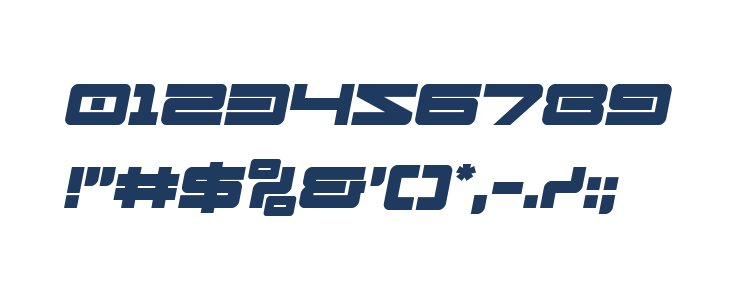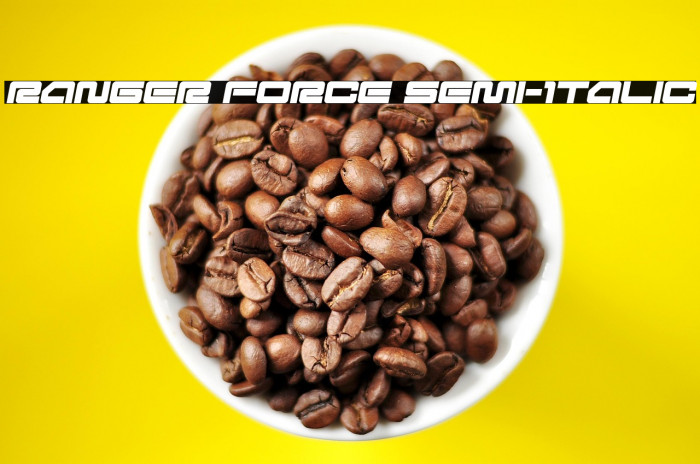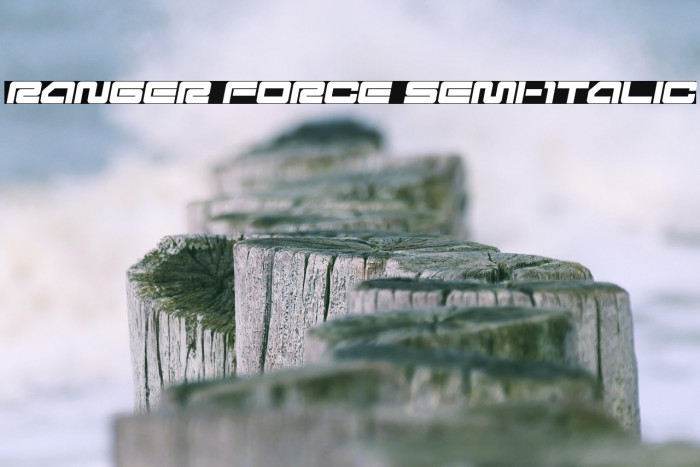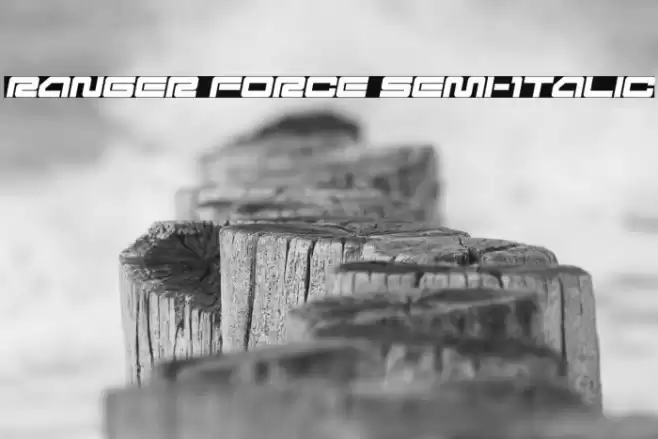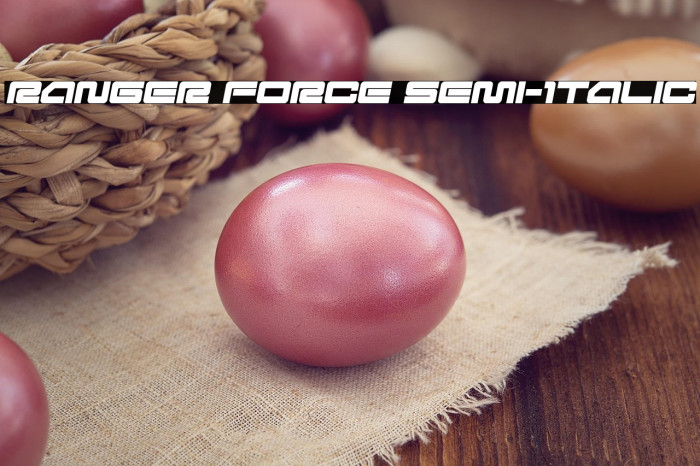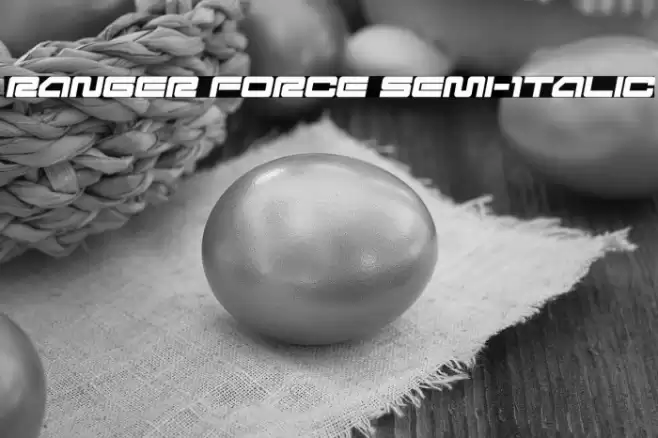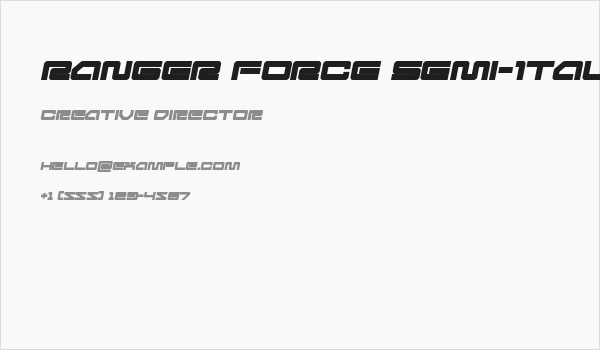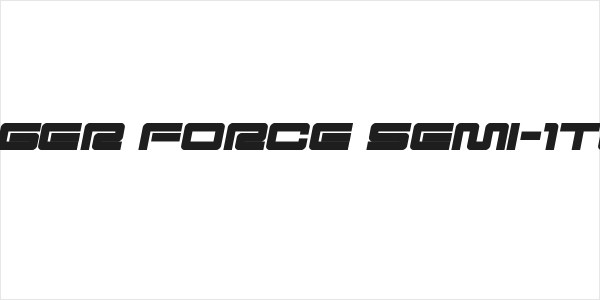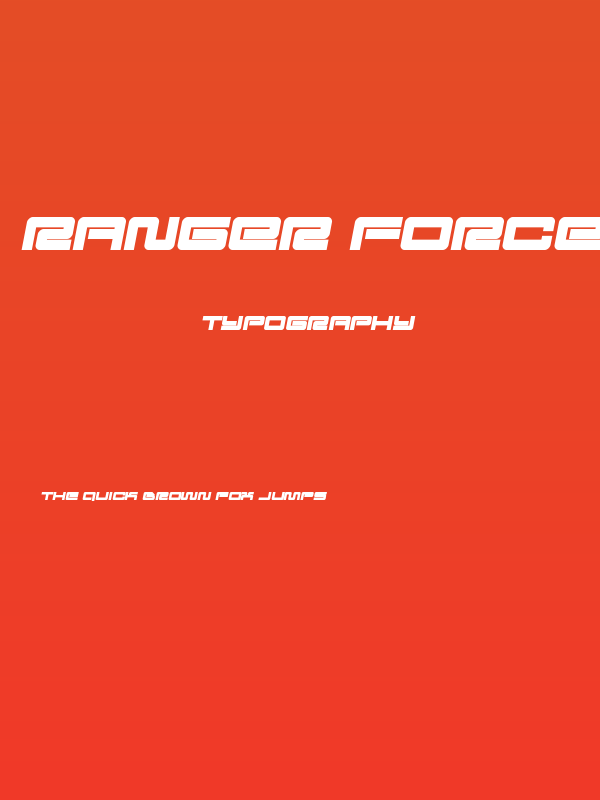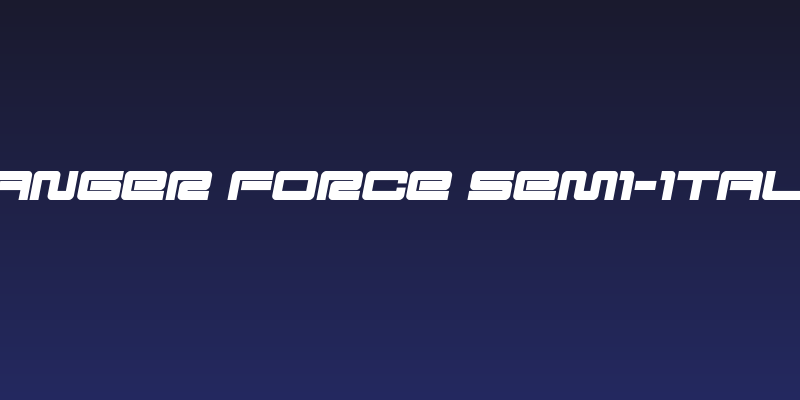
Ranger Force Semi-Italic Font
Ranger Force Semi-Italic Description
This font features a bold, futuristic design with a semi-italic slant, giving it a dynamic and forward-moving appearance. The characters are constructed with geometric precision, incorporating sharp angles and clean lines that suggest a sense of speed and modernity. The uppercase and lowercase letters maintain a consistent style, with the lowercase mirroring the uppercase in form but slightly reduced in size. Numbers and special characters follow the same design principles, ensuring uniformity across all glyphs. The overall aesthetic is sleek and contemporary, making it ideal for projects that require a strong, impactful visual presence.